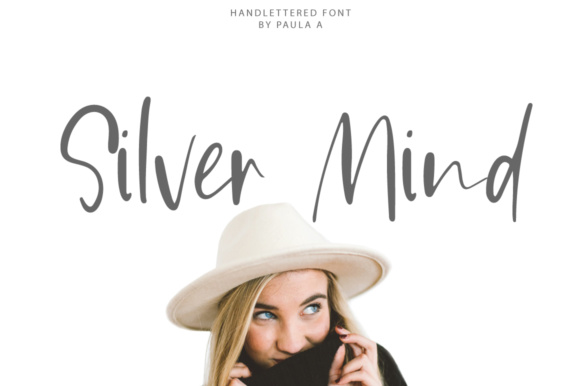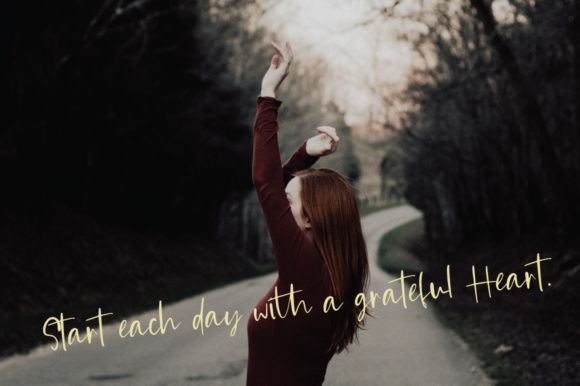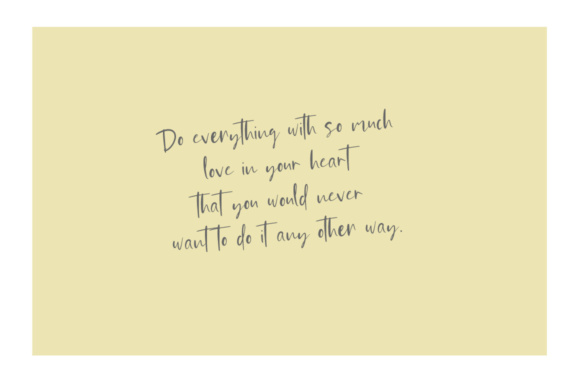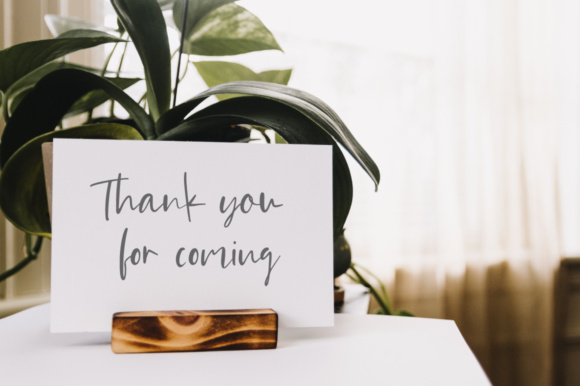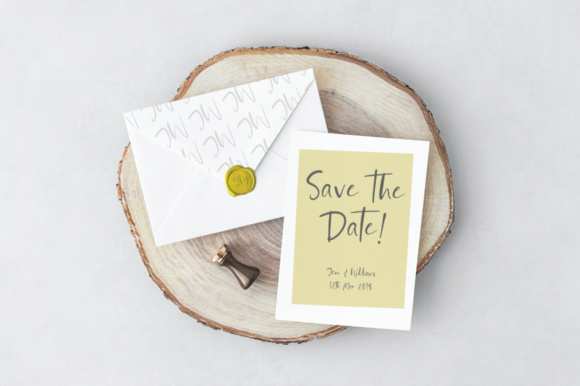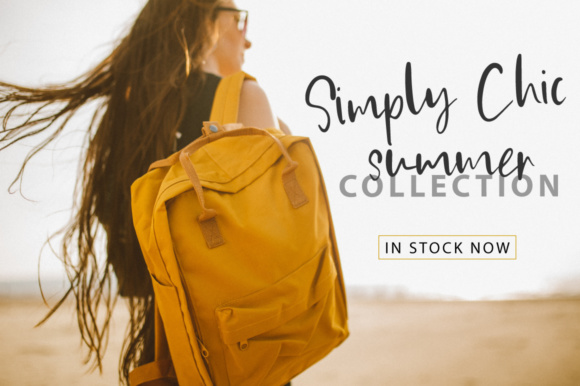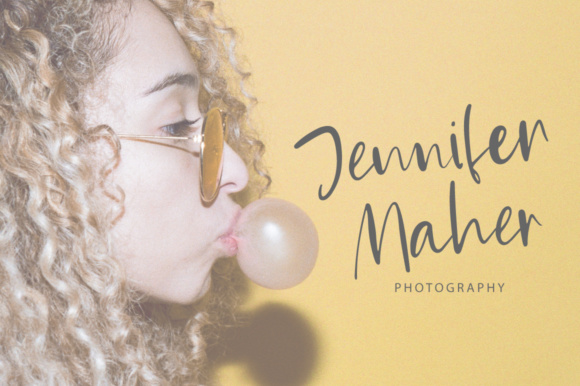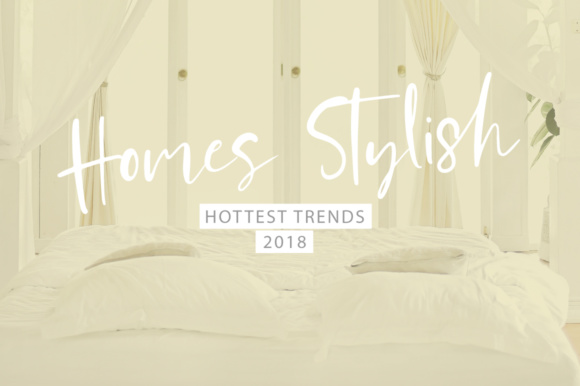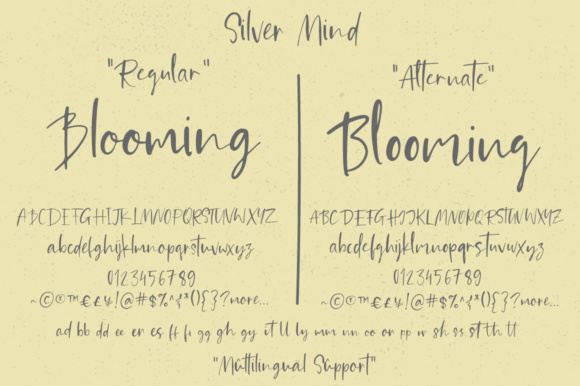
Silver Mind Font
About Silver Mind Font
The Silver Mind is a modern hand-lettered script font. Every single letter has been created carefully and is perfect for every design that needs a touch of tenderness.